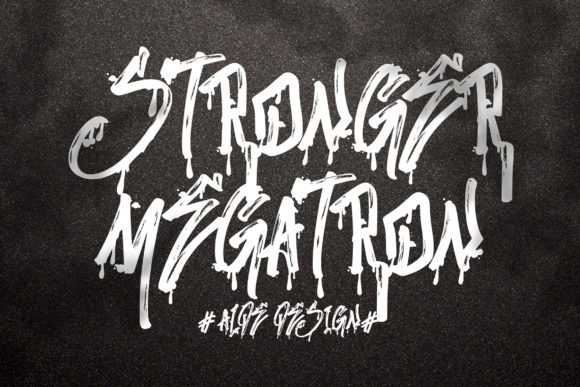
Welcome to the world of Stronger Megatron, a display font that exudes boldness, captivating the senses with its distinct and intriguing appearance. Crafted with the utmost care by aldedesign, this font commands attention with its audacious personality, ready to elevate your designs to new heights.
As you embark on your creative journey with Stronger Megatron, you'll discover a font that thrives in diversity, seamlessly adapting to a myriad of contexts. Whether you're crafting a stunning logo that demands attention or creating eye-catching headlines that leave a lasting impression, Stronger Megatron rises to the occasion, asserting its presence with unwavering confidence.
The beauty of Stronger Megatron lies in its ability to infuse a touch of quirkiness into your designs, adding a delightful dash of personality. Its unique letterforms dance across the page, captivating your audience with their playful charm. Unleash your creativity and let Stronger Megatron guide you towards designs that radiate individuality and leave an indelible mark on the minds of your viewers.
But Stronger Megatron's allure extends beyond its striking appearance. It's a font meticulously designed for legibility, ensuring that your message is conveyed with utmost clarity. Whether you're creating web content, designing captivating social media graphics, or crafting presentations that demand attention, Stronger Megatron ensures that your words shine through, leaving no room for misinterpretation.
In the realm of modern CVs, Stronger Megatron emerges as the ultimate companion, helping you craft a document that stands out from the crowd. Its bold and assertive presence commands attention, conveying your skills and experience with undeniable confidence. Let Stronger Megatron be your ally in creating a CV that reflects your unique personality and leaves a lasting impression on potential employers, propelling you towards your dream job.